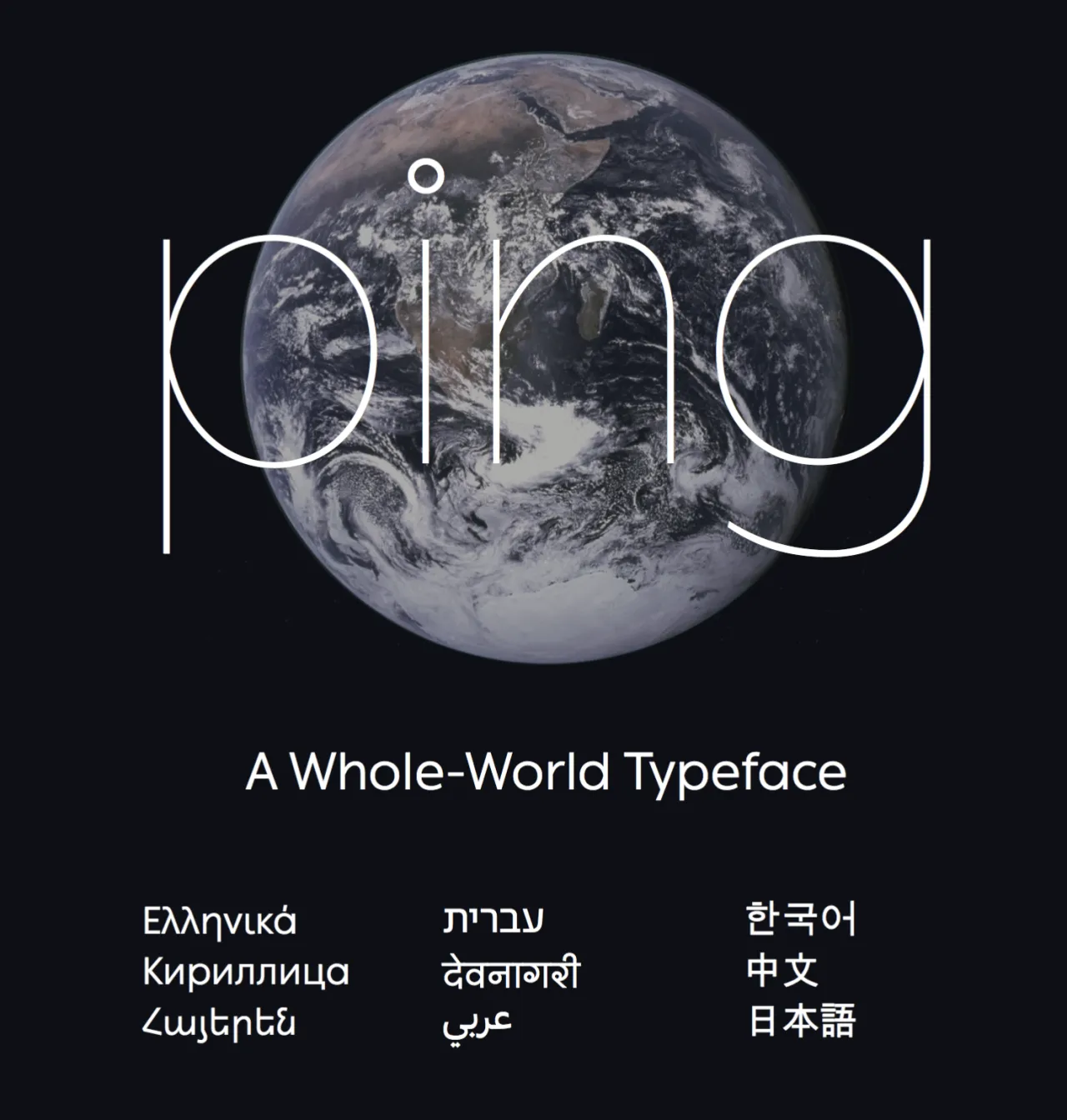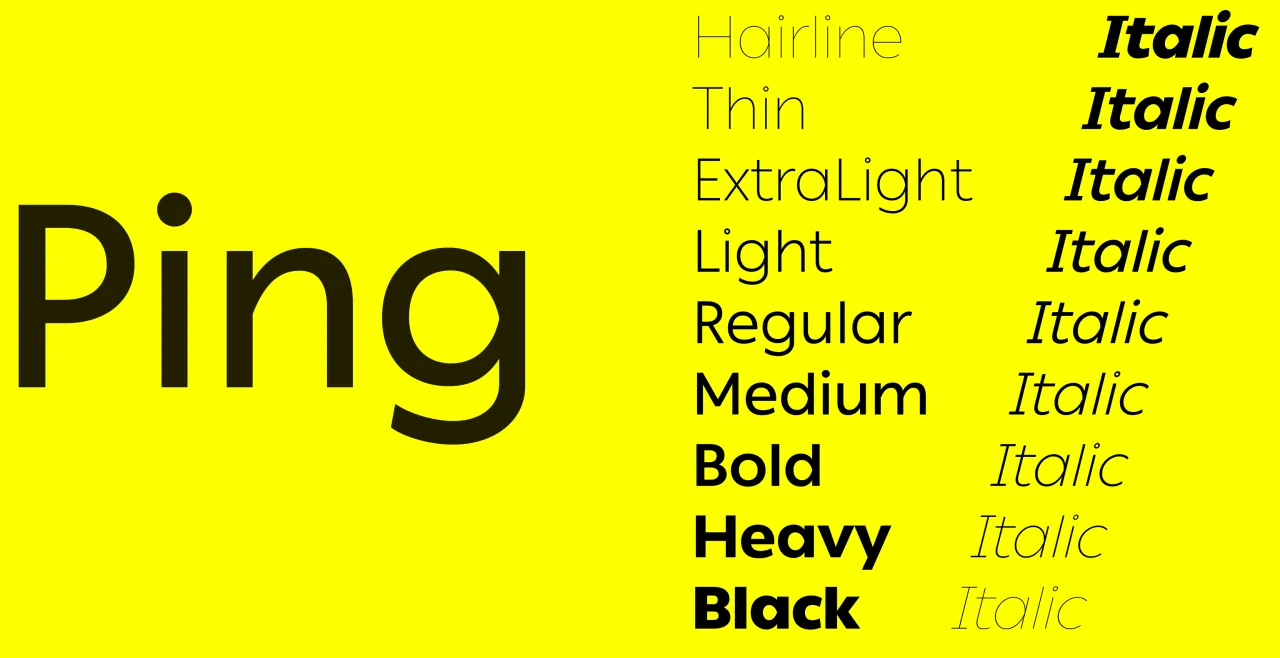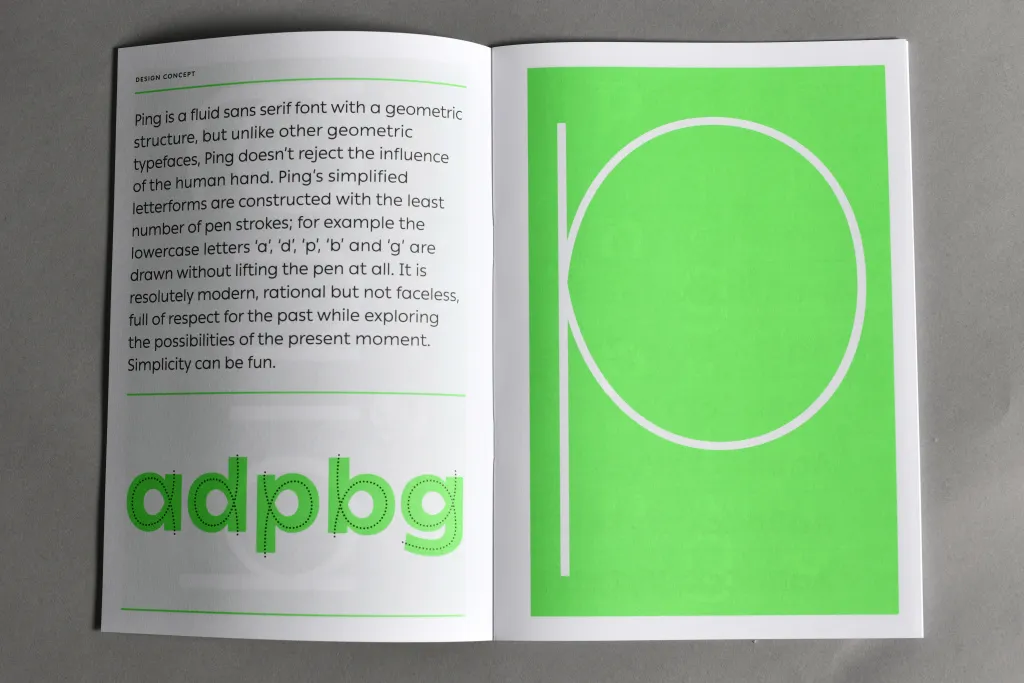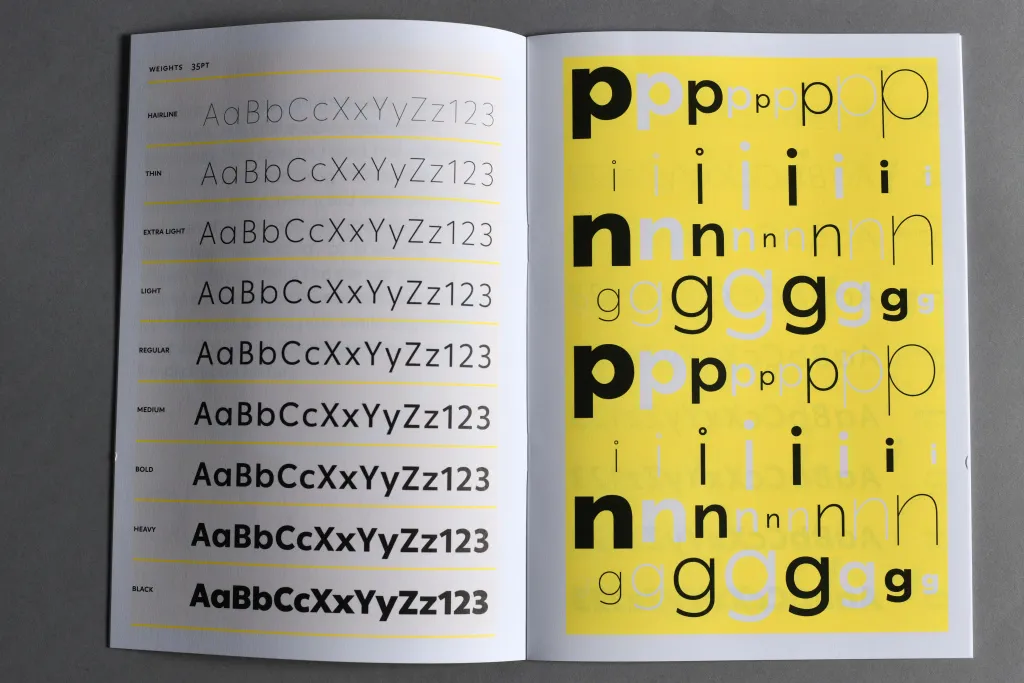
Typotheque launches Ping, a ‘whole world’ typeface with big ambitions
Independent Dutch type foundry, Typotheque, has published a new typeface, which has a rather large ambition to support most of the world’s languages.
'Ping' is a fluid sans serif font with a geometric structure. But unlike other geometric typefaces, Ping doesn't reject the influence of the human hand: its simplified letterforms are constructed with the least number of pen strokes.
Described as “resolutely modern, rational but not faceless, full of respect for the past while exploring the possibilities of the present moment”, Ping is both a text and display font. Typotheque even commissioned Pentagram to design the printed specimens. We chatted to Peter Bilak of Typotheque to find out more.
What’s the story behind Ping?
The first sketches of Ping come from 2008 when it was originally designed as a proposal for a luxury car manufacturer. In the end, it was never used, but I liked the drawings and continued its development.
Since then Typotheque developed a strong interest in multilingual typography, so naturally, we adjusted Ping to fit this new focus and worked on many different writing scripts at the same time.
Traditionally, non-Latin versions of fonts are made after the Latin font becomes a success, so working concurrently on many different language versions is rather unusual.
Ping reconciles two different models of constructing fonts. It appears to be constructed, but unlike typefaces like Futura, it rejects rigid or overly mechanical models, avoiding the sterility of ruler-and-compass constructions. Ping is a fluid sans serif font that embraces the influence of the human hand. Ping’s simplified letterforms are constructed with the least number of pen strokes; for example, the lowercase letters ‘a’, ‘d’, ‘p’, ‘b’ and ‘g’ are drawn without lifting the pen at all.
Your ambitions are quite big for this new typeface in terms of supporting languages. Tell us more
The fact is that there are hundreds of thousands of fonts for English or other Latin-based languages. A designer practising in Western Europe has an incredible choice of typefaces covering all categories.
But it is not the case when it comes to smaller languages such as Armenian, which has its own alphabet, for a country of 3 million. Imagine you have to work on an English/Russian/Armenian publication, not an uncommon scenario for a small country.
There is only a handful of fonts that can cover all three. And if you decide to use the same fonts online as web fonts, there may be even less choice, as these fonts may not be optimised for the use of screens.
As the world is getting more interconnected than anytime before, we find it important to offer a solution to communication across geographic and linguistic borders.
There is a real need for tools that allow this, so at Typotheque, we specialise in developing fonts for all living languages. And that’s why when we work on a new typeface, we don’t only make market-based decisions, but also culturally sensitive decisions, to support also smaller linguistic communities which need new fonts more than the major one.
Pentagram designed the printed specimens. How did that come about?
Pentagram has been using our fonts for many years, and we have made projects together with them, designing custom fonts. I thought it would be fun to reverse the roles and commission them to design something for us.
As an indie type foundry, what challenges do you face?
Just as in any industry, there are a few giants with an unlimited budget that can hire talents, buy companies, start and kill projects. Those companies tend to have a large appetite for market shares and smaller player need to define their unique positions. I suppose thanks to this, small companies profile themselves even more and produce more personal work.